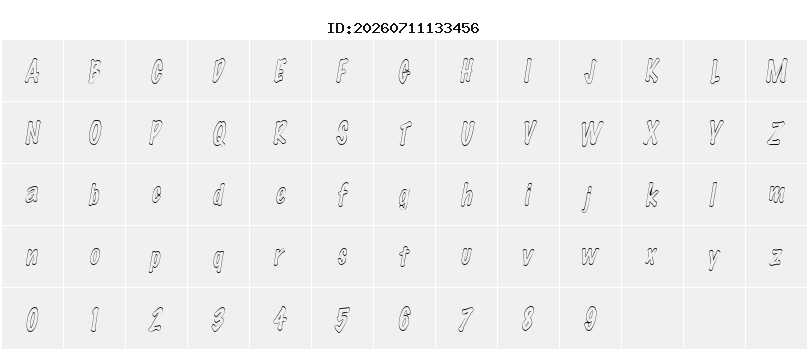
Marker-Hollow-Condensed Preview
• Full Font Name: Marker-Hollow-Condensed Italic
About Marker-Hollow-Condensed.ttf
Marker-Hollow-Condensed.ttf is a modern, elegant sans-serif font designed for ultimate readability and visual harmony. Perfect for branding, headlines, web design, and print materials.